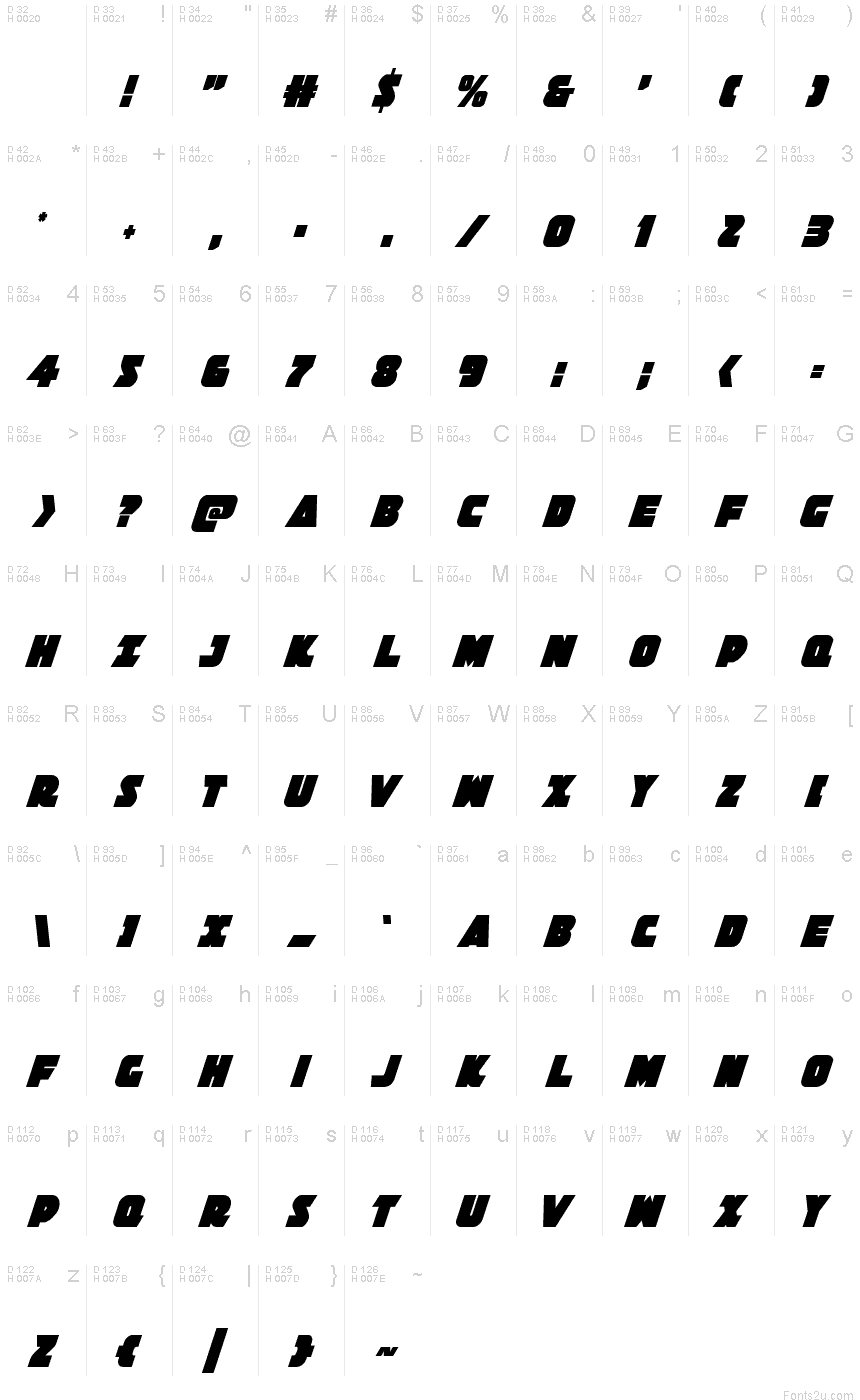
Jedi Special Forces Condensed Italic from Iconian Fonts is a free futuristic display font with a hard, charging silhouette. Its broad black strokes lean steeply forward and squeeze into tight angular forms. Sharp wedges and triangular cuts give the lettering the look of a custom racing insignia.
Brands tied to motorsport, competitive gaming, or action entertainment can use it for forceful product graphics. It also suits event posters, merchandise, and title cards where speed is central to the concept. The aggressive slant and blade-like details connect these uses to science fiction, combat, racing, and high-speed machinery.
Jedi Special Forces Condensed Italic